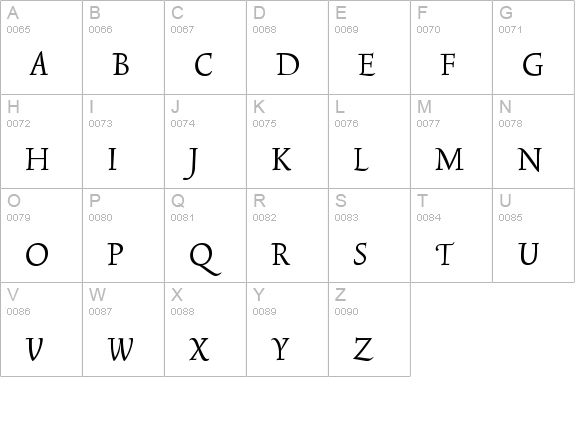
TriniteNo2-Italic is a distinctive, italic variant in the TriniteNo2 typeface family \xE2\x80\x94 well suited to design and typography projects.
TriniteNo2-Italic font is a stunning typeface that exudes elegance and sophistication. Its sleek and slanted design adds a touch of modernity to any project, making it perfect for various creative ventures. With its distinct italicized style, TriniteNo2-Italic font commands attention and effortlessly captivates the eye. This font boasts a harmonious balance between thin and bold strokes, resulting in a visually striking and aesthetically pleasing appearance. Its unique letterforms showcase a seamless flow, creating a sense of fluidity that adds a dynamic touch to any text. TriniteNo2-Italic font is designed for versatility, allowing it to effortlessly adapt to a wide range of design applications. Whether it's used for branding, editorial design, packaging, or web design, this font brings a touch of sophistication and professionalism to any project. What sets TriniteNo2-Italic font apart is its availability as a free download at FontsMarket.com. This means that you can enjoy the beauty and versatility of this font without any cost. It's a fantastic opportunity to add a touch of elegance to your designs without breaking the bank. Don't miss the chance to elevate your designs with TriniteNo2-Italic font. Download it freely at FontsMarket.com and let your creativity soar with this captivating typeface.